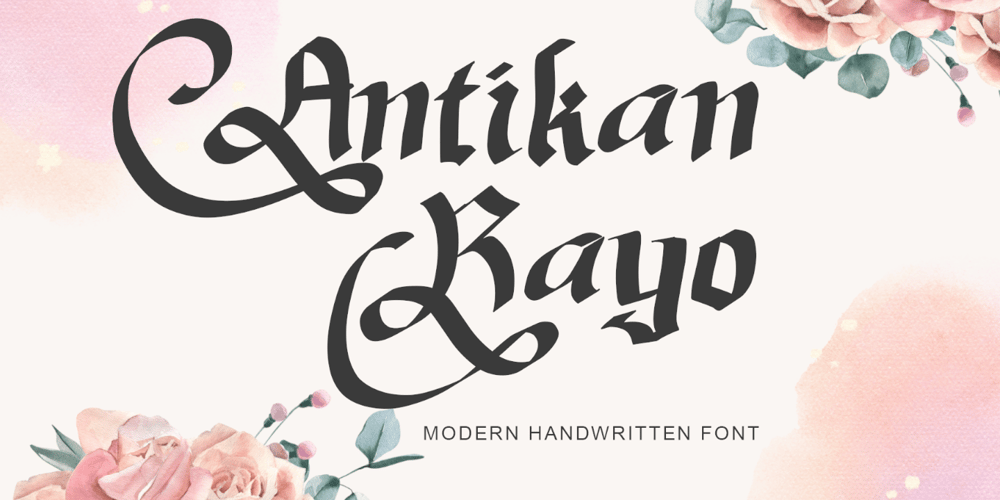
Antikan Rayo Font Family was designed by Isroni Yoga Prasetya and published by Yoga Letter. Antikan Rayo contains 1 styles and family package options. “Antikan Rayo” is a beautiful handwritten font. This font is equipped with uppercase, lowercase, numerals, punctuation, and multilingual support. very suitable for Christmas, winter, weddings, engagements, valentines, invitations, photography, birthdays, and others.